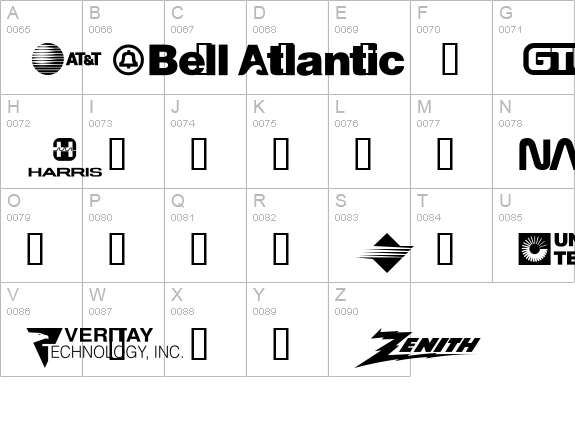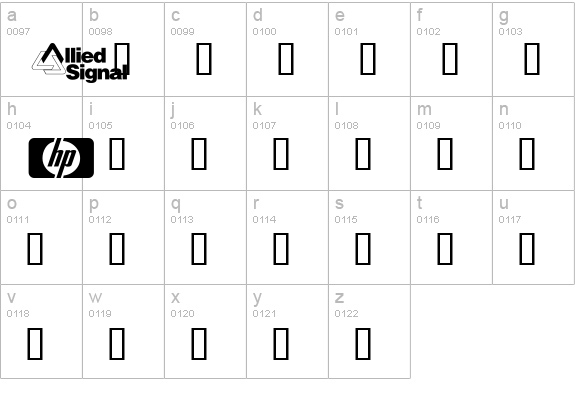
Logos Technology font is a modern and sleek typeface that exudes a sense of innovation and sophistication. With its clean lines and futuristic design, this font is perfect for tech-related projects, branding, and corporate communication. The sharp edges and geometric shapes of Logos Technology font make it stand out and command attention. What's even better is that Logos Technology font is available for free download at FontsMarket.com. This means that you can easily access and use this stylish font in your projects without any cost. Whether you are a designer, a business owner, or a creative enthusiast, Logos Technology font offers a versatile and professional option for your typography needs. Download Logos Technology font today and elevate your designs with its contemporary flair and dynamic presence.